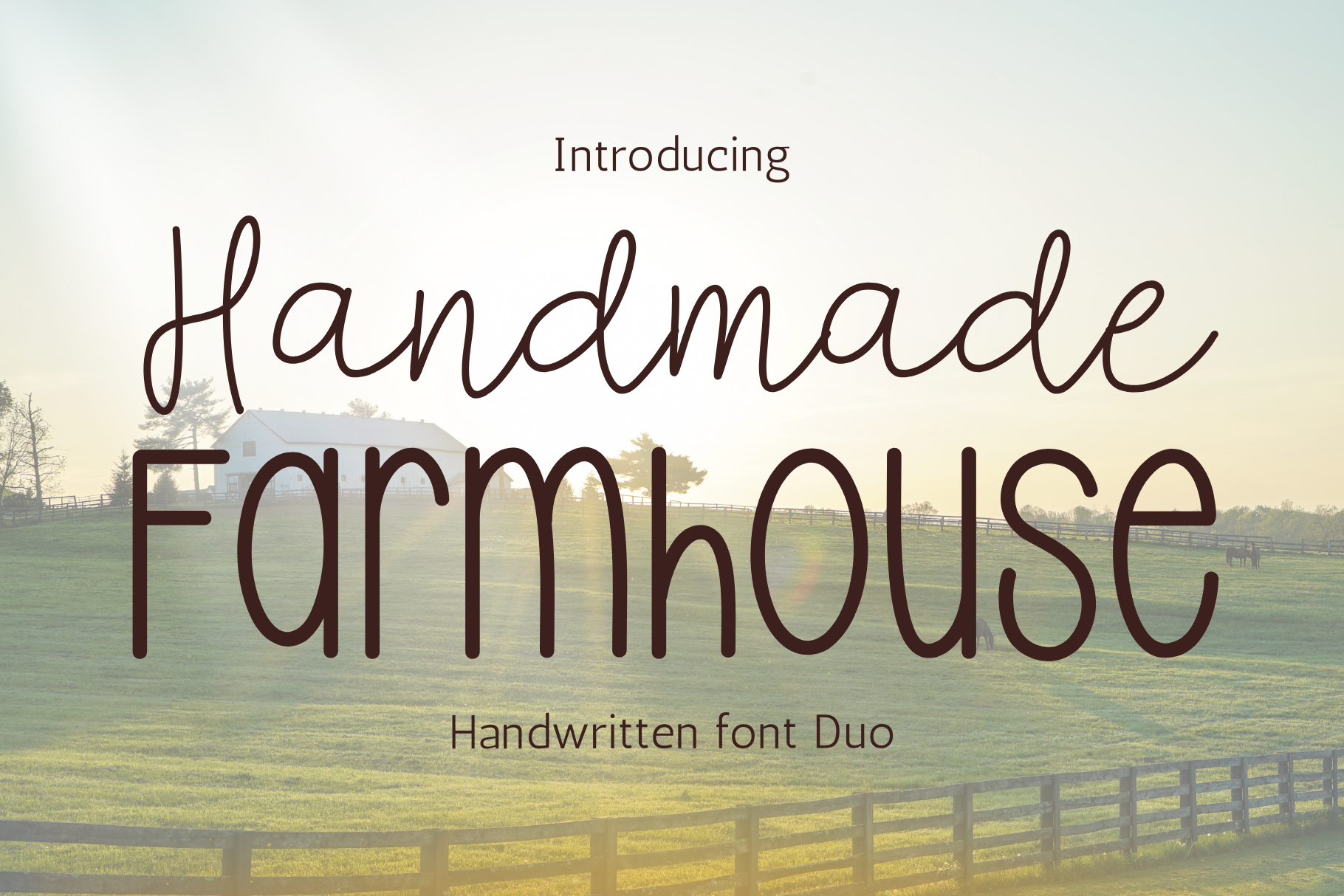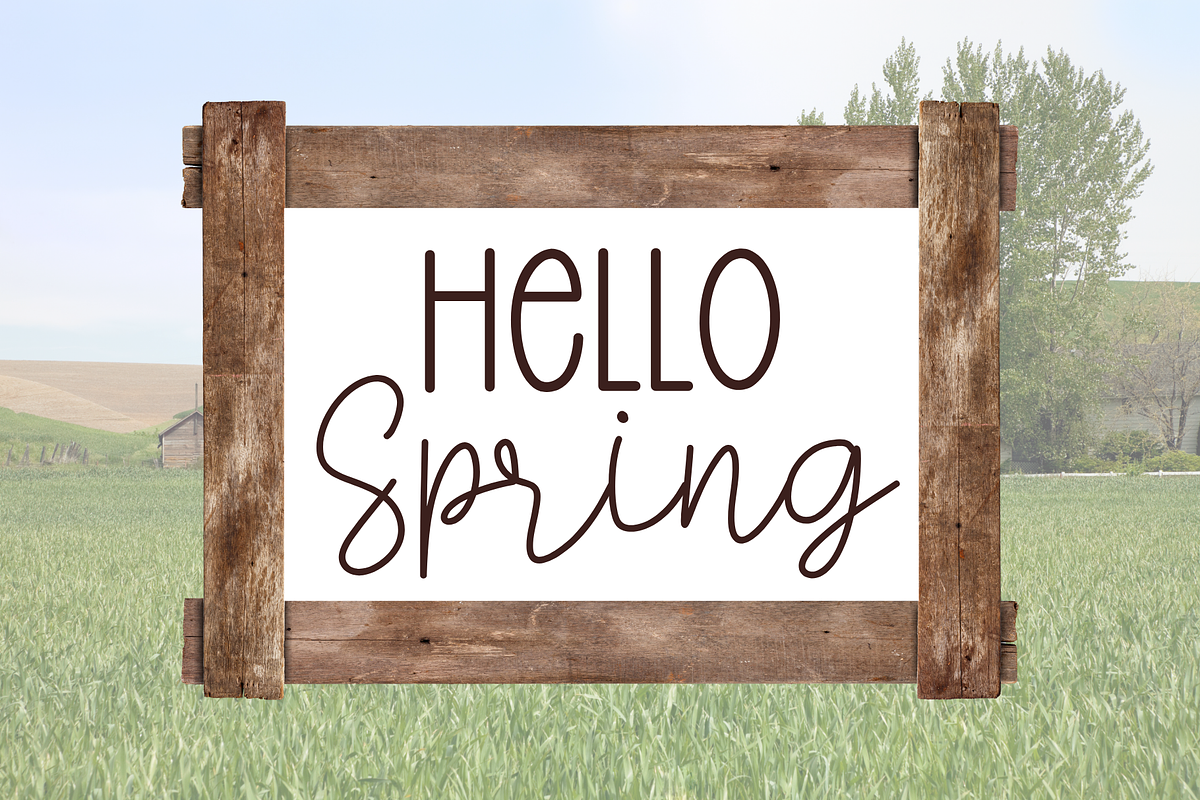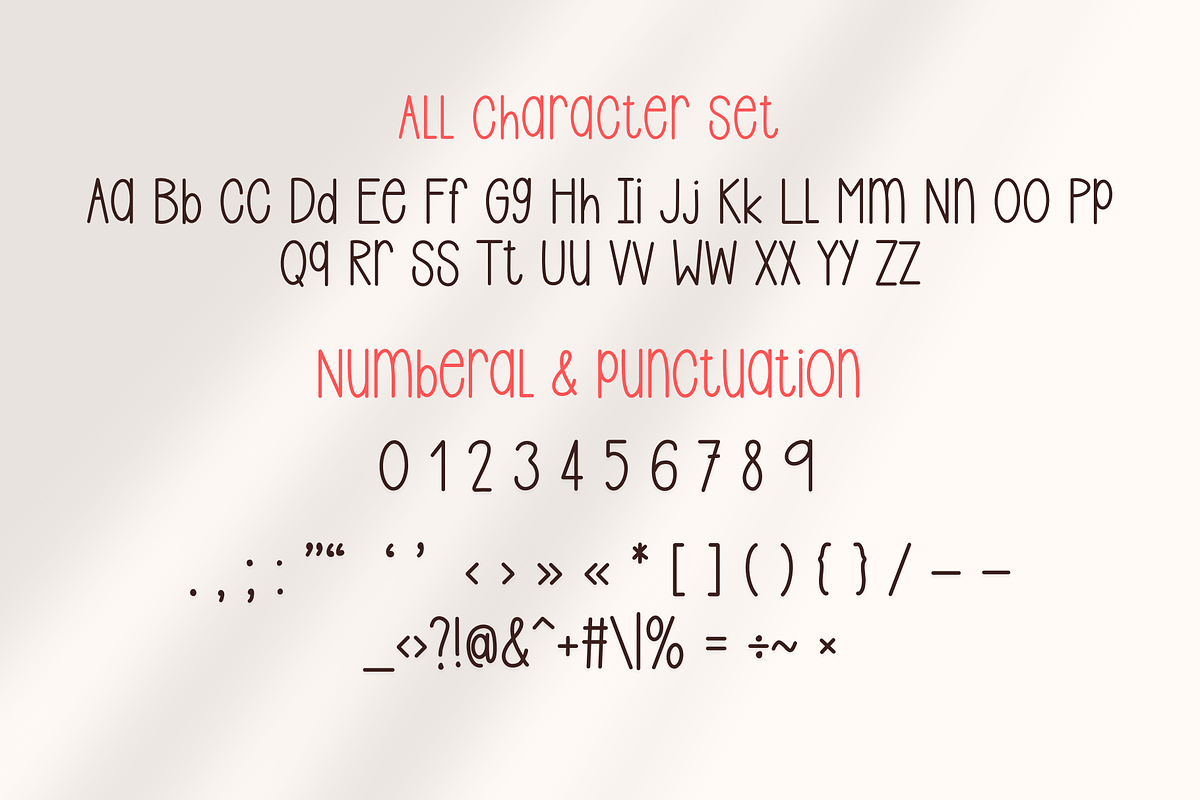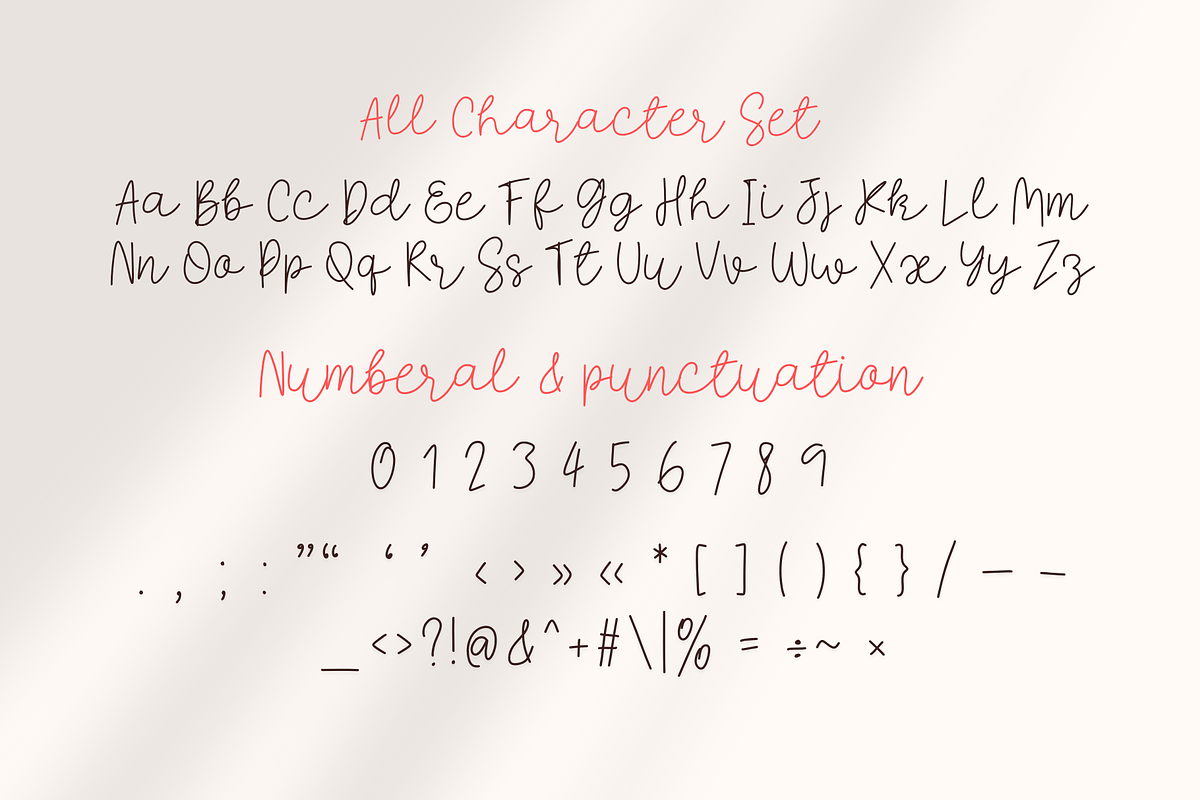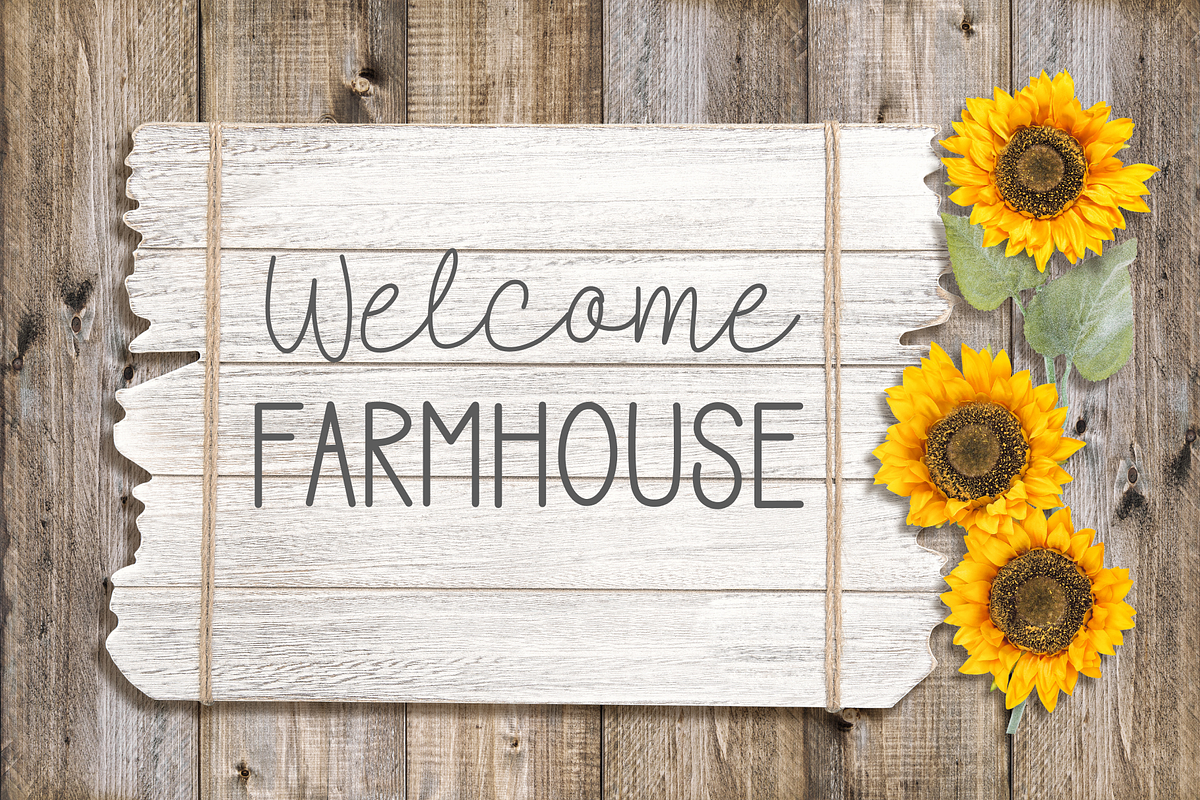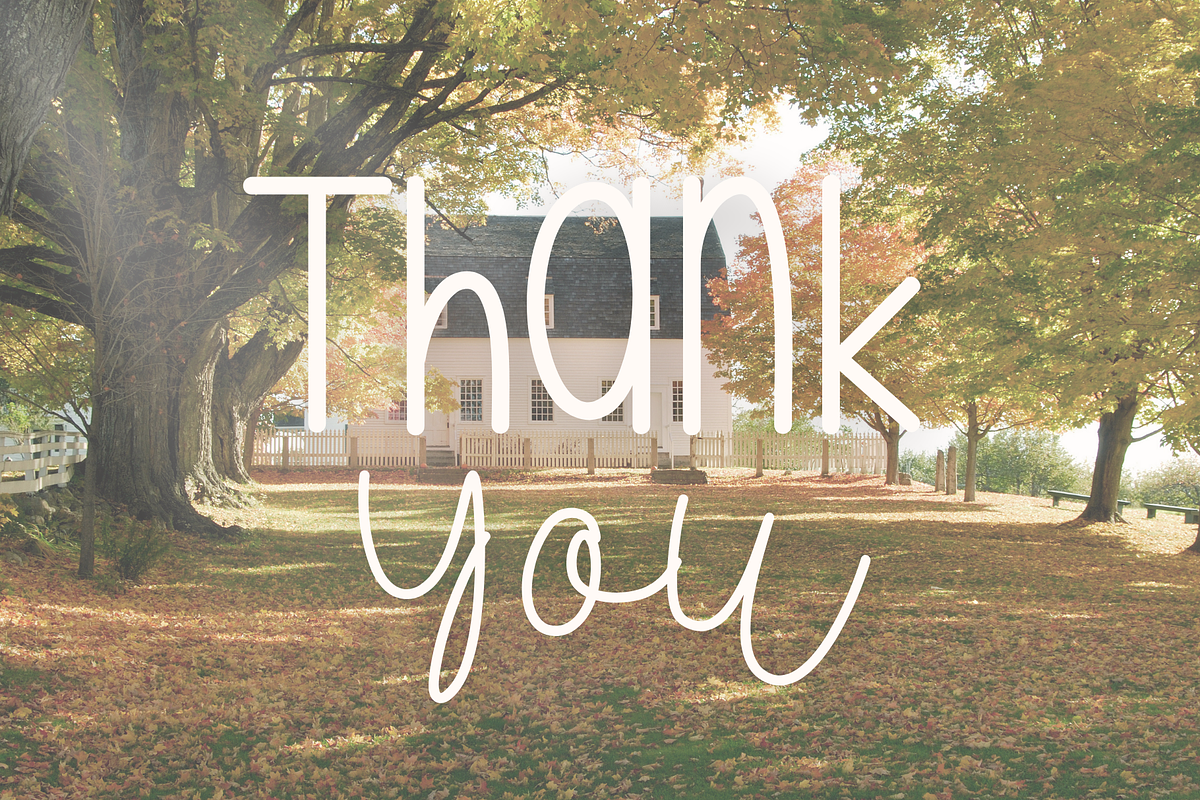
Handmade Farmhouse is duo font
Handmade Farmhouse is handwritten script font duo. It embodies playfulness and authenticity and is the perfect choice for all your favorite projects, or even for blog posts, logos, branding, ads, invitations, greeting cards, planners, photo albums, decorations, and much more. Add it to any of your designs, and enjoy the results!